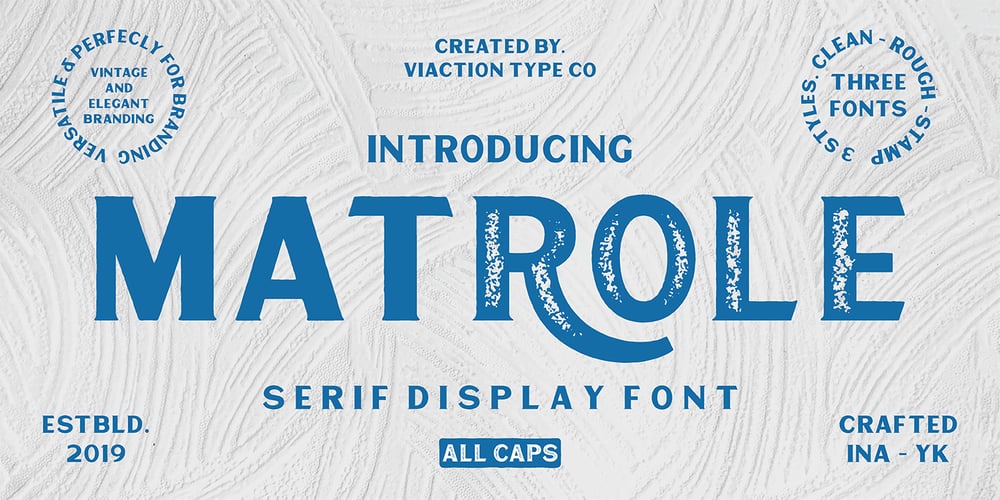
Matrole Font Family was designed by Lukman Hidayat and published by Viaction Type.Co. Matrole contains 3 styles and family package options. Matrole is a Display Serif with 3 styles: clean, rough and stamp, nice applied in various products. Complete with multilingual characters and stylistic alternates. It is suitable for quote, clothing design, vintage logo, label, poster, packaging design and other designs.